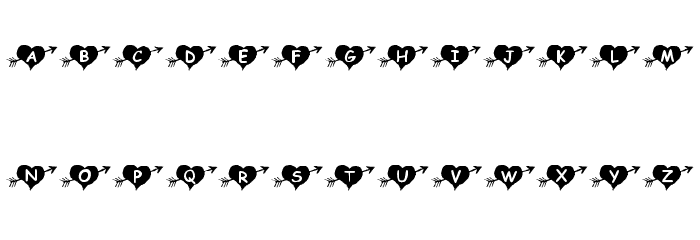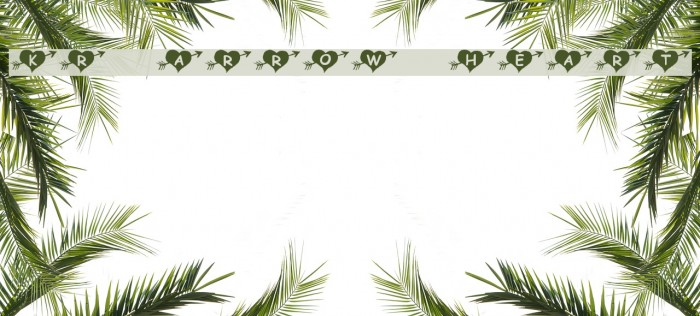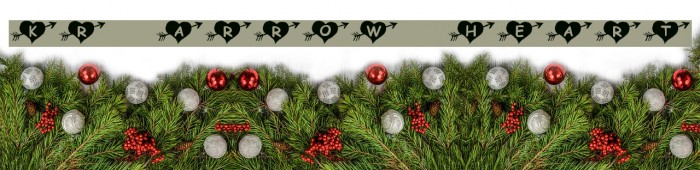
KR Arrow Heart Font
This decorative font features each letter encased within a heart shape, with an arrow piercing through it, creating a playful and romantic aesthetic. The letters are bold and easily legible, contrasting sharply with the heart outlines. The design is consistent across both uppercase and lowercase letters, as well as numbers and special characters. The whimsical style makes it suitable for projects that require a touch of charm and creativity.
A playful, heart-themed decorative font with bold letters and arrow accents.
- Proposed Projects: Ideal for Valentine's Day cards, wedding invitations, romantic event posters, and playful branding materials.
- Use Case: Logos, Headlines, Invitations